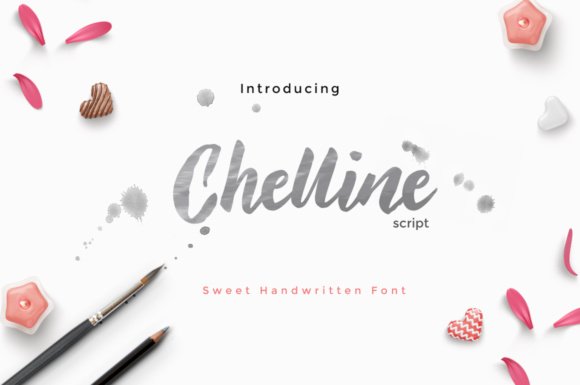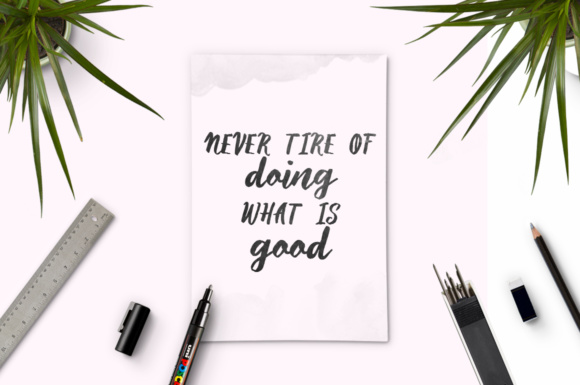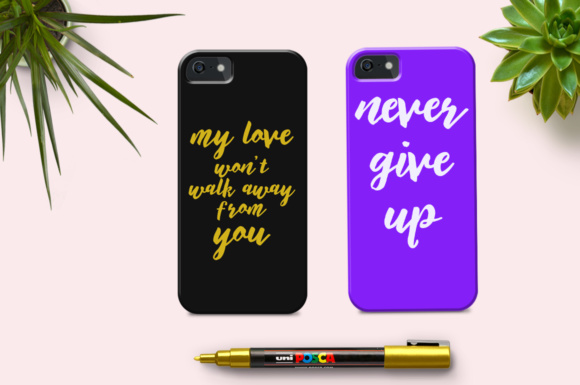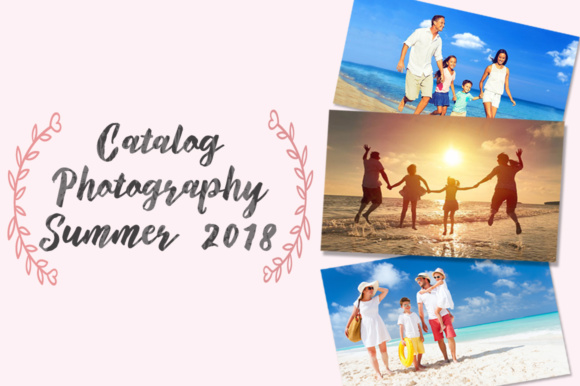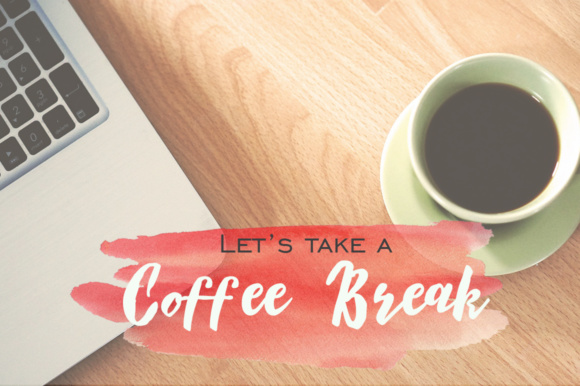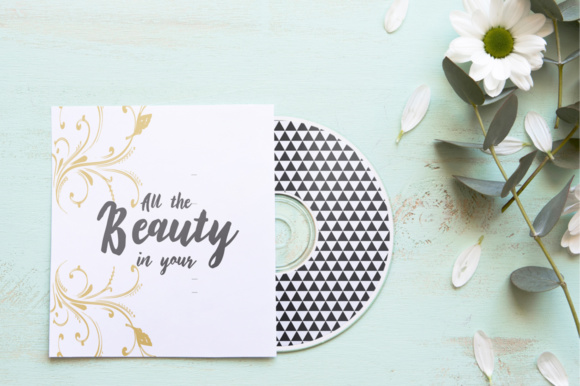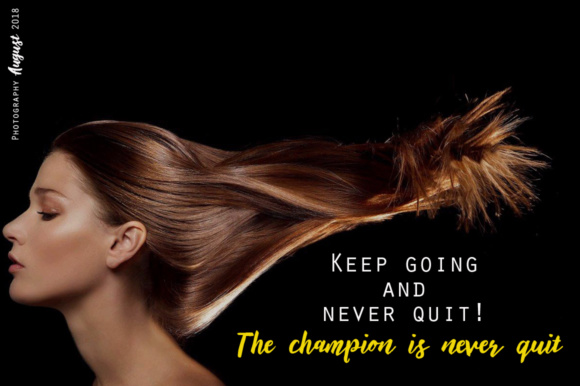
Give Your Designs an Elegant Touch with Chelline Script Font
As a designer, have you ever felt the urge to add a touch of sophistication to your latest project? Maybe you’re working on a logo for a high-end fashion brand or a wedding invitation for a close friend. Whatever the case, you know that the right font can make all the difference. This is where the Chelline Script Font comes in – a beautiful, elegant script that adds a level of refinement to any design.
Perfect for logos, clothing designs, invitations, and more, the Chelline Script Font is a valuable addition to any designer’s toolkit. With its flowing lines and classic feel, it’s sure to give your designs an air of sophistication and glamour. Whether you’re working on a personal project or a client-based design, the Chelline Script Font is sure to impress.
Key Features of Chelline Script Font
- Font Style: Script Font, elegant and handwritten
- Unique Characteristics: Unique ligatures, swashes, and flourishes for a personal touch
Chelline Script Font Review
Overall, I think Chelline Script Font is a lovely addition to any designer’s toolkit. ✨ The font’s elegant and flowing script style is perfect for creating a sense of sophistication and luxury in your designs.
- Unique and stylish design: Chelline Script Font has a distinctive look that’s sure to stand out in any design.
- Wide range of applications: This font is perfect for headings, titles, and even body text in a variety of contexts.
- High-quality formatting: Chelline Script Font is well-formatted and easy to use, making it a breeze to integrate into your designs.
- ⚠️ Limited font sizes: While Chelline Script Font looks great at larger sizes, it can become distorted at smaller sizes, which may limit its usability in certain contexts.
- ⚠️ Limited language support: This font may not be compatible with all languages, which could be a issue for designers working on multilingual projects.
Overall, I think Chelline Script Font is a solid choice for designers looking to add some elegance and sophistication to their work. While it may have a few limitations, its unique style and high-quality formatting make it a valuable addition to any toolkit.
Chelline Script Font is ideal for:
- Food and beverage labels.
- Stationery and greeting cards.